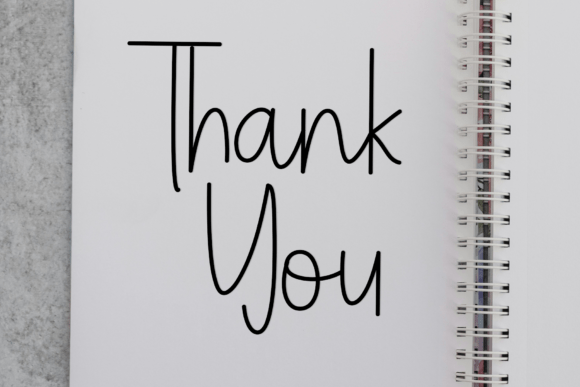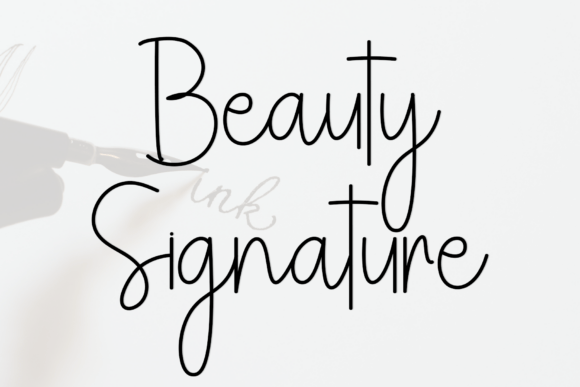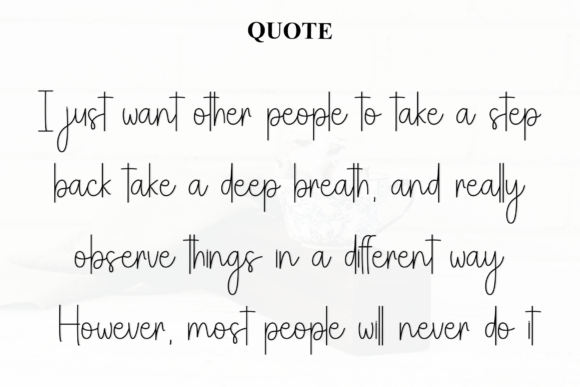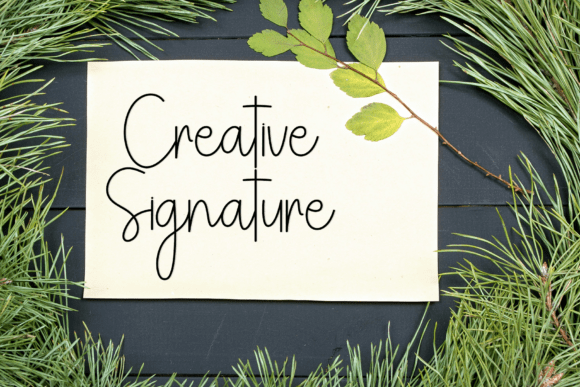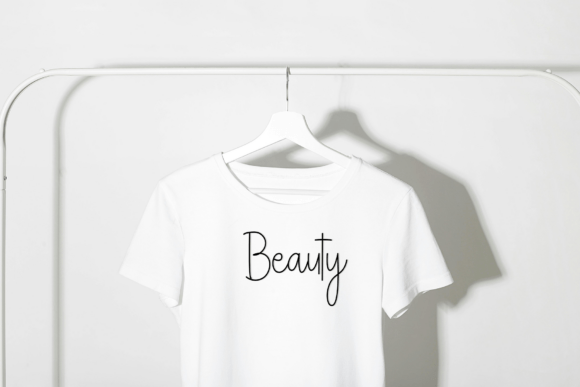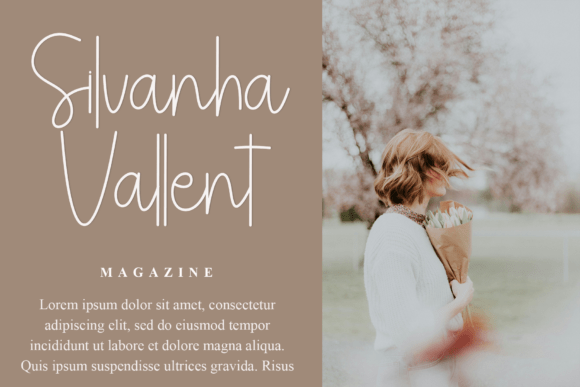
Introducing Birthday Signature Font: The Perfect Addition to Your Design Arsenal
Are you tired of using the same old fonts for your designs? Look no further! Birthday Signature Font is a delicate and elegant handwritten font that is sure to take your creations to the next level. Its distinct and well-balanced letters make this font a masterpiece, perfect for designers and crafters who want to add a touch of sophistication to their work.
The Characteristics of Birthday Signature Font
So, what makes Birthday Signature Font so special? For starters, its incredibly versatile style allows it to be used in a variety of design applications, from wedding invitations and greeting cards to branding and packaging. The font’s delicate and elegant handwritten style gives it a personal and intimate feel, making it perfect for designs that require a touch of warmth and personality.
One of the standout features of Birthday Signature Font is its well-balanced letters. Each letter has been carefully crafted to ensure that it flows seamlessly into the next, creating a beautiful and harmonious visual effect. The font’s distinct letters also make it easy to read and recognize, even at small sizes.
The Benefits of Using Birthday Signature Font
So, why should you choose Birthday Signature Font for your next design project? Here are just a few benefits of using this amazing font:
- Versatility: Birthday Signature Font can be used in a wide range of design applications, from digital to print.
- Elegance: The font’s delicate and elegant handwritten style adds a touch of sophistication to any design.
- Readability: The font’s well-balanced letters make it easy to read and recognize, even at small sizes.
- Uniqueness: Birthday Signature Font is a unique and distinctive font that will help your designs stand out from the crowd.
How to Use Birthday Signature Font in Your Designs
Using Birthday Signature Font in your designs is easy! Here are a few tips to get you started:
- Pair it with other fonts: Birthday Signature Font looks great when paired with other fonts, such as sans-serif fonts or script fonts.
- Use it for headings and titles: The font’s elegant and delicate style makes it perfect for headings and titles.
- Add some color: Birthday Signature Font looks great in a variety of colors, from soft pastels to bold and bright hues.
- Experiment with different sizes: The font’s versatility means it can be used at a range of sizes, from small to large.
Who is Birthday Signature Font for?
Birthday Signature Font is perfect for designers and crafters who want to add a touch of elegance and sophistication to their work. This includes:
- Graphic designers: Birthday Signature Font is perfect for graphic designers who want to create beautiful and unique designs for their clients.
- Stationery designers: The font’s elegant and delicate style makes it perfect for stationery designers who want to create beautiful greeting cards and invitations.
- Crafters: Birthday Signature Font is also great for crafters who want to add a personal touch to their handmade projects, such as scrapbooking and card making.
In conclusion, Birthday Signature Font is a beautiful and versatile handwritten font that is perfect for designers and crafters who want to add a touch of elegance and sophistication to their work. Its distinct and well-balanced letters make it a masterpiece, and its incredibly versatile style means it can be used in a wide range of design applications. Whether you’re a graphic designer, stationery designer, or crafter, Birthday Signature Font is sure to become a favorite in your design arsenal.